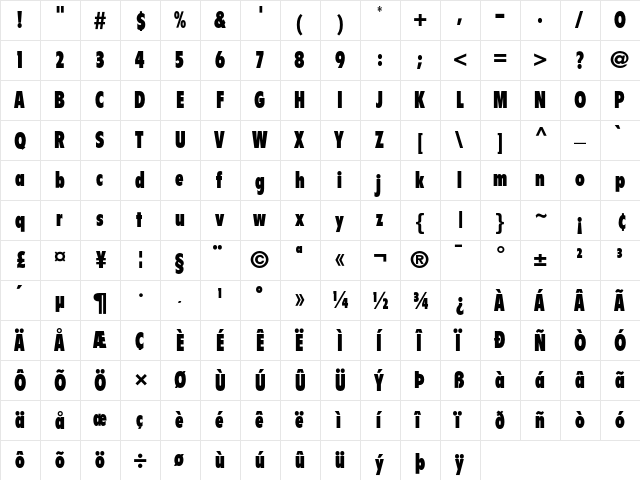
Flyer Extra Black Condensed
Design Context for Flyer Typeface
Flyer is a composed and adaptable typeface that performs quietly and consistently across a wide range of design contexts. The condensed width makes it efficient for tight spaces without sacrificing legibility.